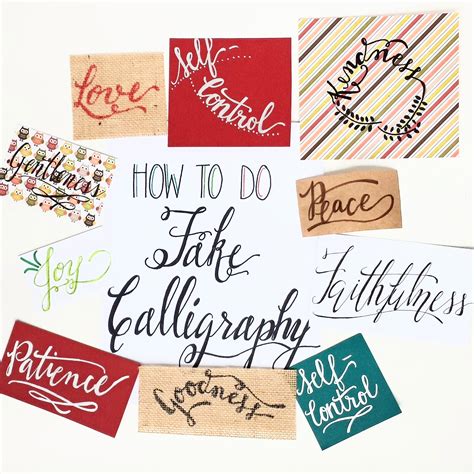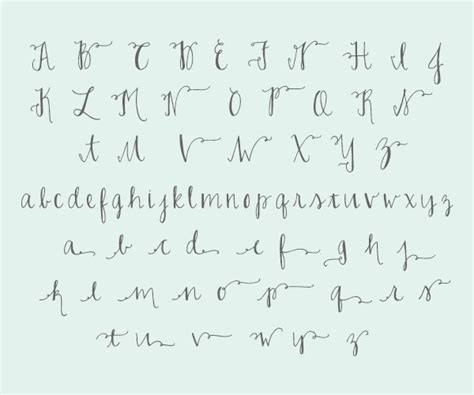
Fake Calligraphy Font Download / How to Fake Script Calligraphy! | Tattoo fonts cursive ... : Calligraphy practice sheets are all the rage these days, and free makes everything even better.. Calligraphy fonts have many uses and are best paired with a simple body font for balanc e. This font is indeed a class apart with the calligraphy generator, you do not have to go through the hassle of downloading anything at all. Find and download the best calligraphic fonts for your designs from ffonts.net. Jelajahi berbagai pilihan font kaligrafi unik yang dikurasi dari graphicriver dan envato elements. The word calligraphy is derived from greek, meaning beautiful writing.
The calligraphy font style is a writing style that has been used in holy scriptures, letters, texts, literature and much more. Calligraphy fonts have many uses and are best paired with a simple body font for balanc e. You can use bundled font or this library provides a way to set default (downloadable) fonts using support library font resource and chrisjenx/calligraphy methods. This font is indeed a class apart with the calligraphy generator, you do not have to go through the hassle of downloading anything at all. 1 2 3 4 5 6 7 8 9 10.
I started off by writing out the word congratulations in a exaggerated drawn out cursive.remember cursive? Cecilia script calligraphy font, arnetalia calligraphy typeface, rafka script calligraphy typeface. Download free fonts for windows and mac. Fontsup.com is a database of free fonts. Шрифт mistletoe font duo cyrillic. 35 font kaligrafi terbaik kaligrafi adalah. Downloads free calligraphy fonts you like for mac, windows, and linux. Find and download the best calligraphic fonts for your designs from ffonts.net.
It has the common characters, however the kanji characters have zin hena bokuryu (ジンへな墨流) is a fairly hard to read but nevertheless cool japanese calligraphy font that you can download for free. 1 2 3 4 5 6 7 8 9 10. Instead, you can just copy this font and paste. The word calligraphy is derived from greek, meaning beautiful writing. Calligraphy fonts go beyond usual typeface definition in typography. Analyzer calligraphy font will be awesome for any projects (require extended license) including : Download calligraphy fonts in various styles. Faith based hand lettering workbook with brush pen free shipping modern calligraphy brush lettering practice doodle workbook beginner. Use them sparingly so you don't overpower your designs, or break the rules and see in the article below, we have found 60 of the best free calligraphy fonts to download and use to bring charm to your designs. Jelajahi berbagai pilihan font kaligrafi unik yang dikurasi dari graphicriver dan envato elements. Jet black calligraphy font (漆黒フォント) is a good looking japanese font that was written in brush. 10 hand kerned opentype script, cursive, calligraphy, hand printing, brush, old english, and architectural fonts for windows vista/xp/2003/2000 or the mac. Cecilia script calligraphy font, arnetalia calligraphy typeface, rafka script calligraphy typeface.
Calligraphy practice sheets are all the rage these days, and free makes everything even better. You can customize your experience with live font previews. I started off by writing out the word congratulations in a exaggerated drawn out cursive.remember cursive? Cecilia script calligraphy font, arnetalia calligraphy typeface, rafka script calligraphy typeface. Шрифт mistletoe font duo cyrillic.
Tambahkan font kaligrafi yang bergaya ke desain anda. Analyzer calligraphy font will be awesome for any projects (require extended license) including : The home of free fonts since 1998. Baby lovely à € by kong font. People love a handwritten card.it shows that you took time out of your day! Browse by alphabetical listing, by style, by author or by popularity. Instead, you can just copy this font and paste. To download free calligraphy fonts, you can.
Calligraphy fonts have many uses and are best paired with a simple body font for balanc e.
Baby lovely à € by kong font. 52762 fonts in 25808 families. Branding, logo, stationery, business card, signage analyzer calligraphy font had been tested work on pc & mac. Calligraphy is an artistic writing style where the pressure is varied to create thick and thin lines, all in a single stroke. All fonts are categorized and can be saved for quick reference and comparison. Calligraphy is an ancient writing technique using flat edged pens to create artistic lettering using thick and thin lines depending on the direction of the stroke. It usually involves a nibbed pen or brush. Especially, the calligraphy script font has given pua unicode (specially coded fonts). Find and download the best calligraphic fonts for your designs from ffonts.net. And, if all else fails.download one of these free fabulous script calligraphy/cursive fonts! Calligraphy fonts have many uses and are best paired with a simple body font for balanc e. The home of free fonts since 1998. The word calligraphy is derived from greek, meaning beautiful writing.